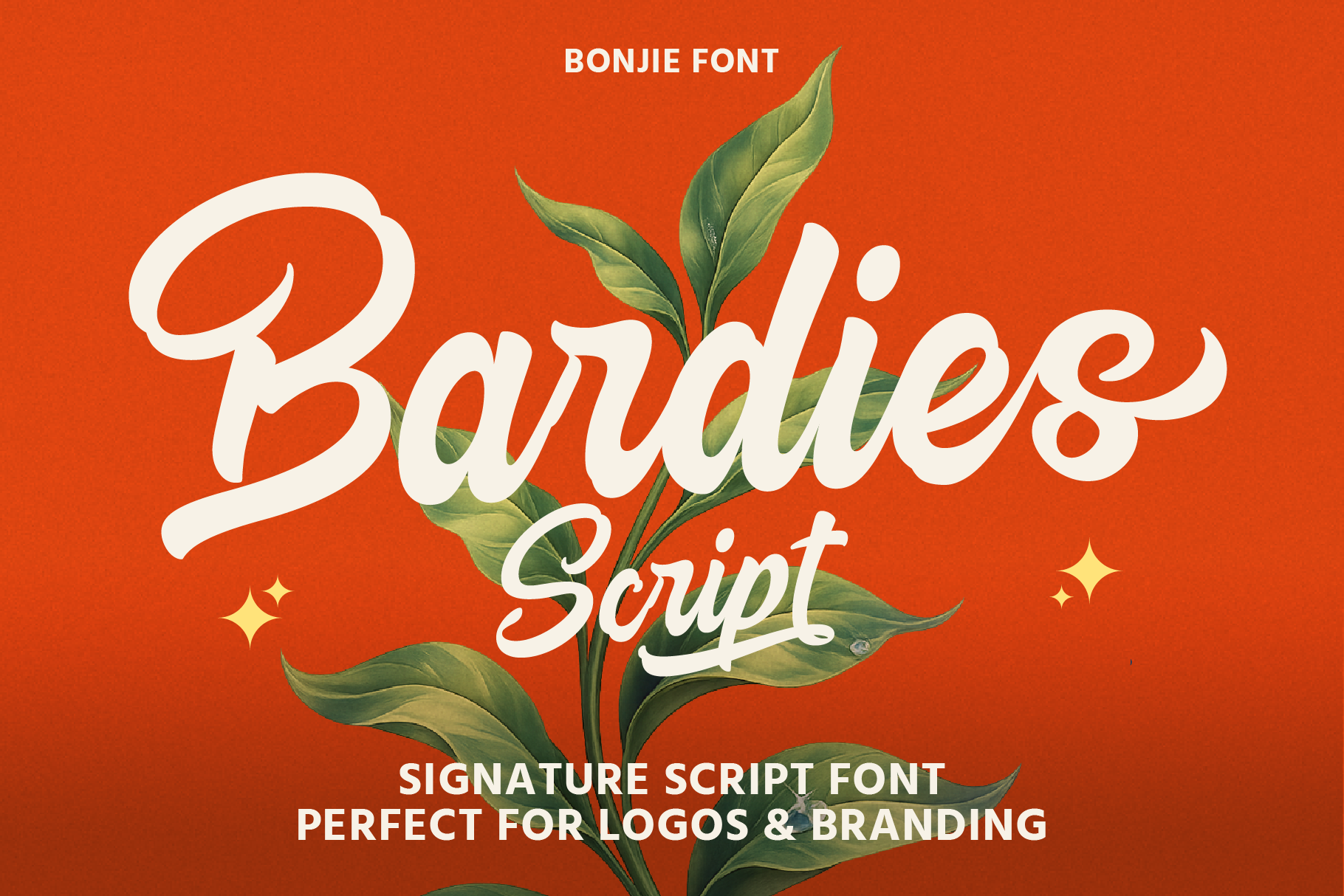
Bardies Bold Script Font
Bardies Bold Script Font - handcrafted script font with a smooth flow, playful curves, and confident brush strokes. Designed to make every word stand out, energetic, and approachable personality, natural handwritten feel with excellent readability.
Perfect for logos, product packaging, café branding, apparel, posters, social media graphics, quotes, invitations, merchandise, food & beverage brands, and any creative project that needs a friendly yet impactful script style.